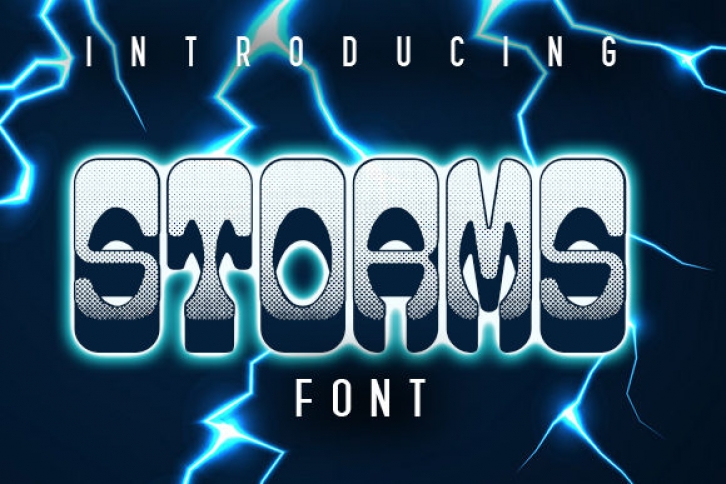
Storms is a bold and incredibly unique display font. It celebrates abstract shapes in all their eclectic beauty. Add this font to your favorite creative ideas and notice how it makes them come alive!